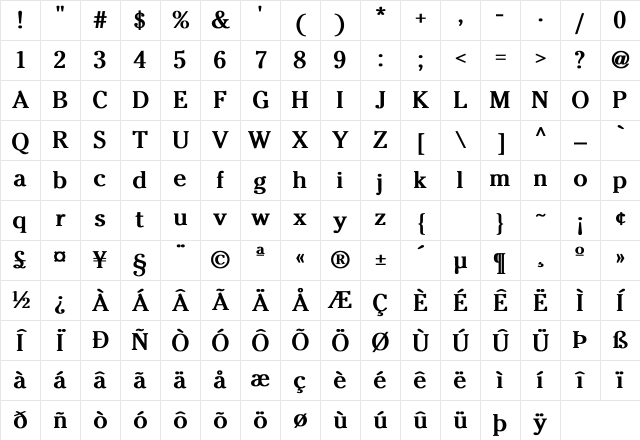
Cheltenham-Normal Bold
Design Context for Cheltenham-Normal
Cheltenham-Normal is a composed and adaptable typeface that performs quietly and consistently across a wide range of design contexts. Its bold stroke weight gives it real presence on the page.
Pro Tip: Use Cheltenham-Normal in both headline and body roles to test its range before committing to a single application.